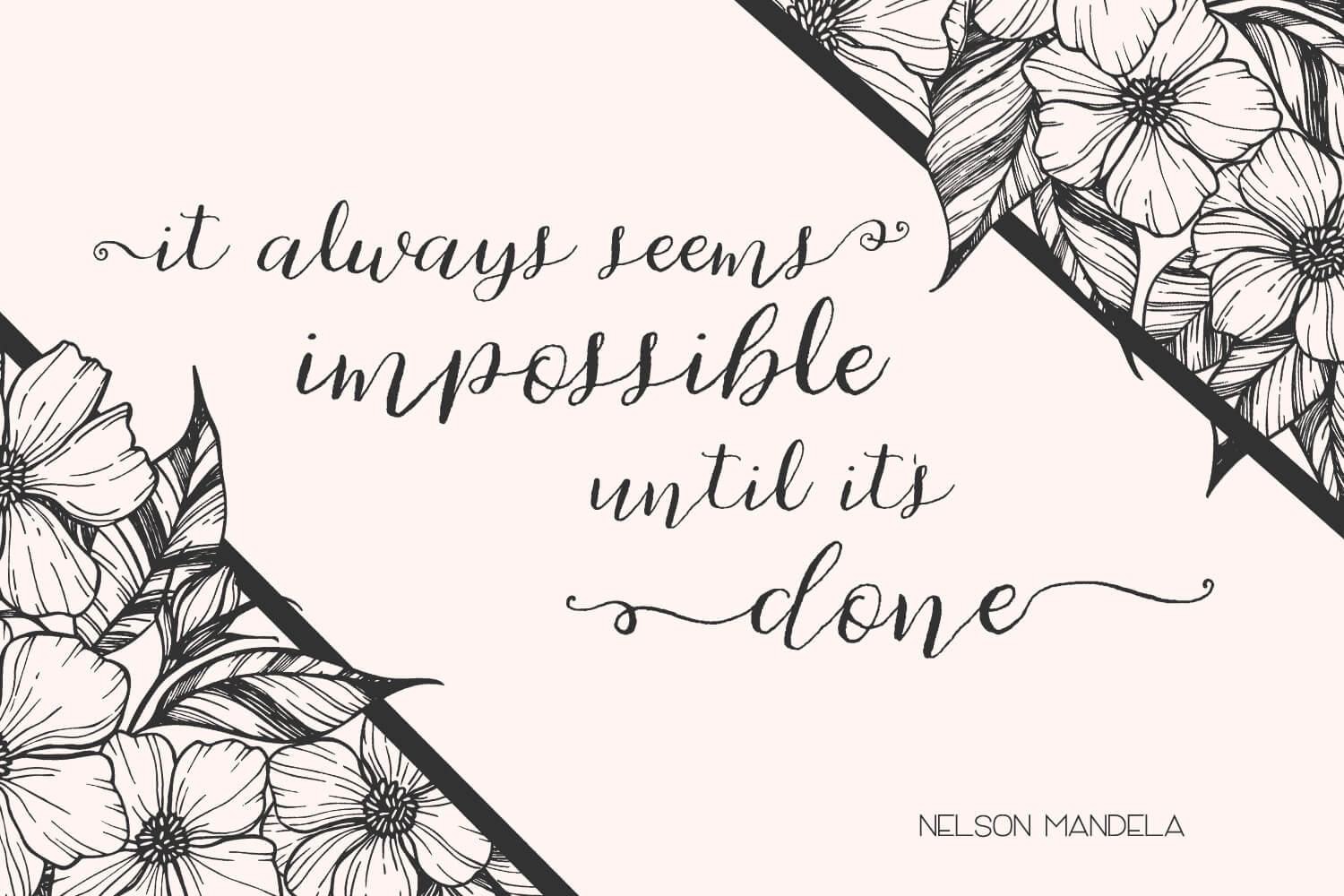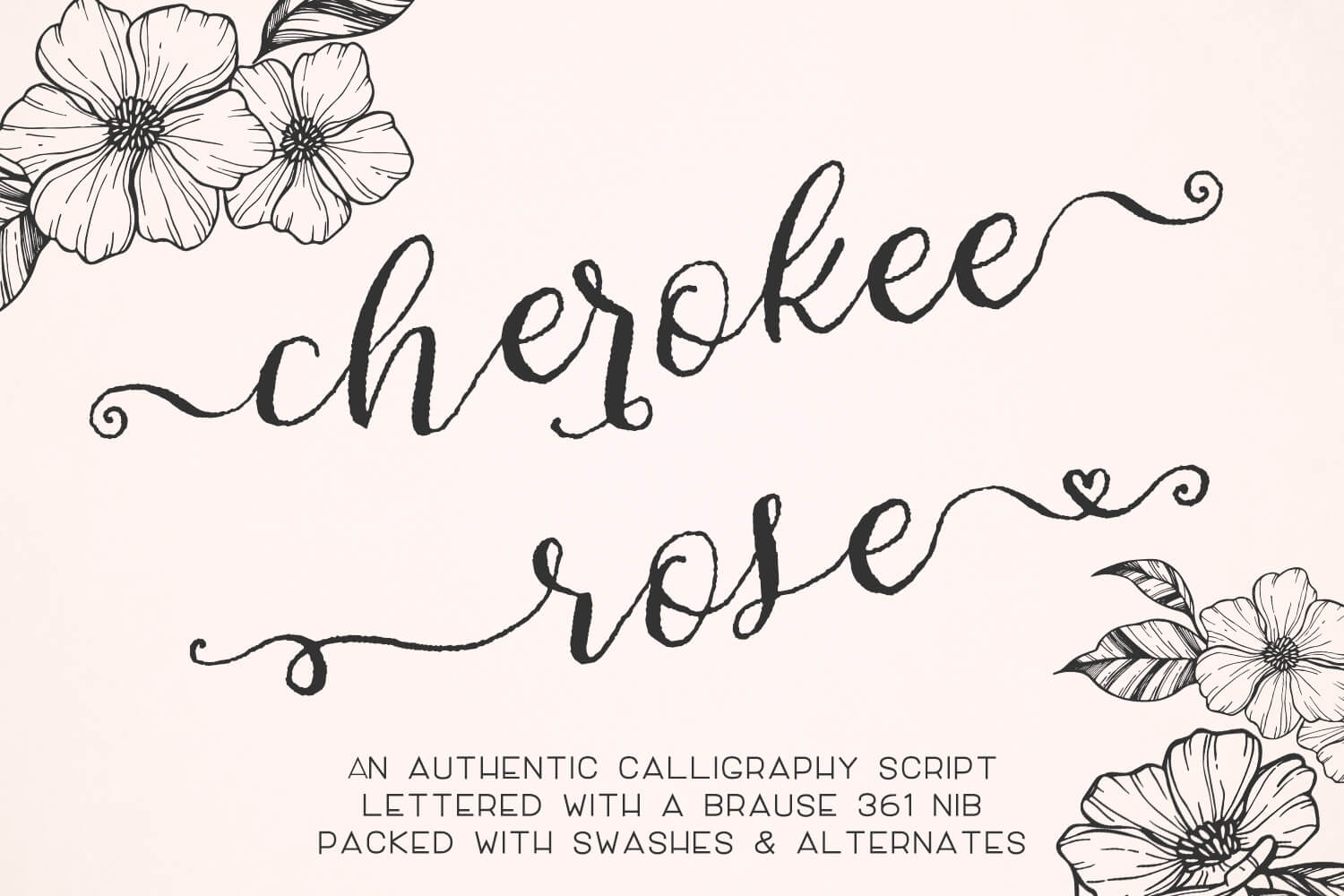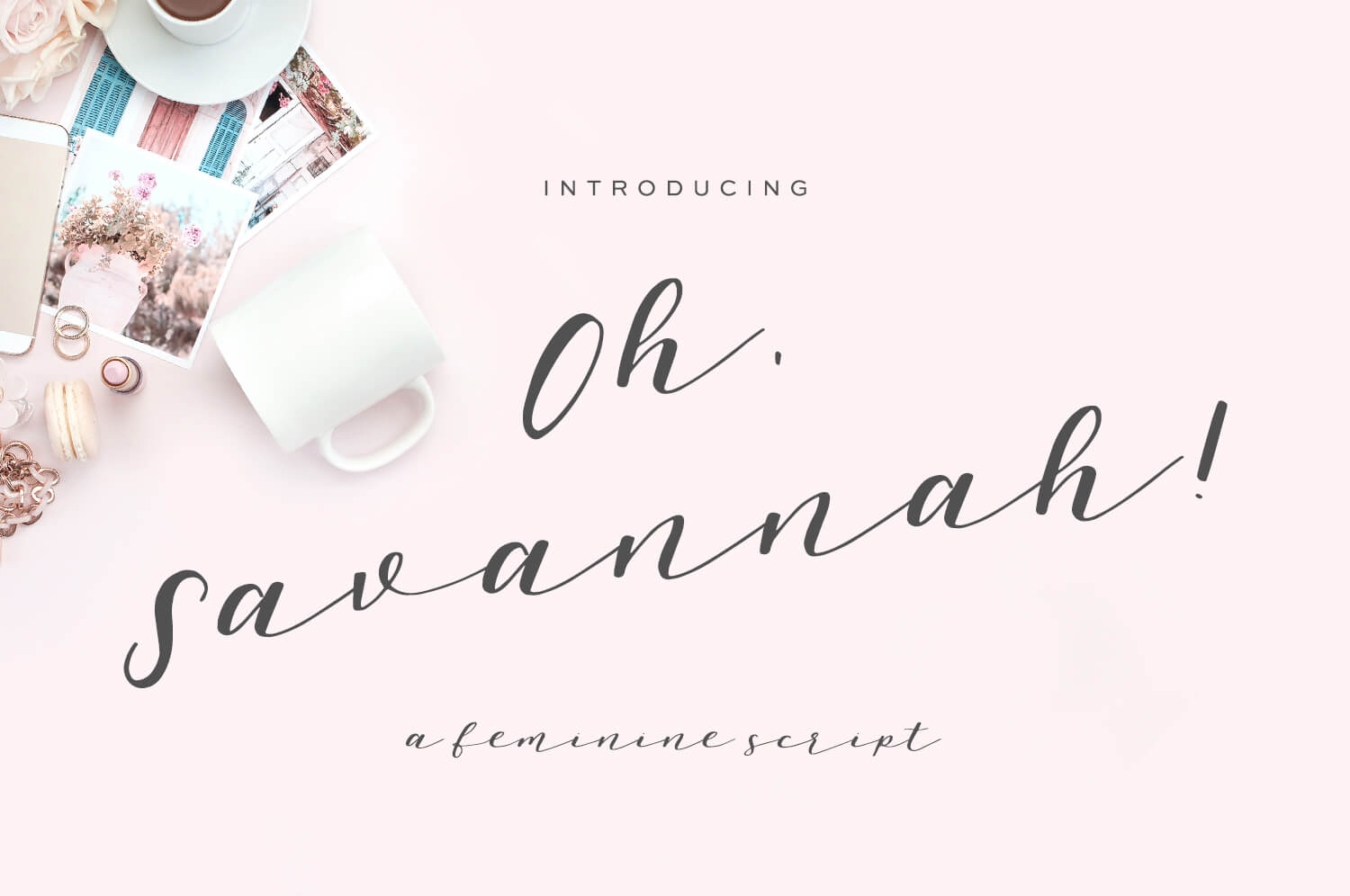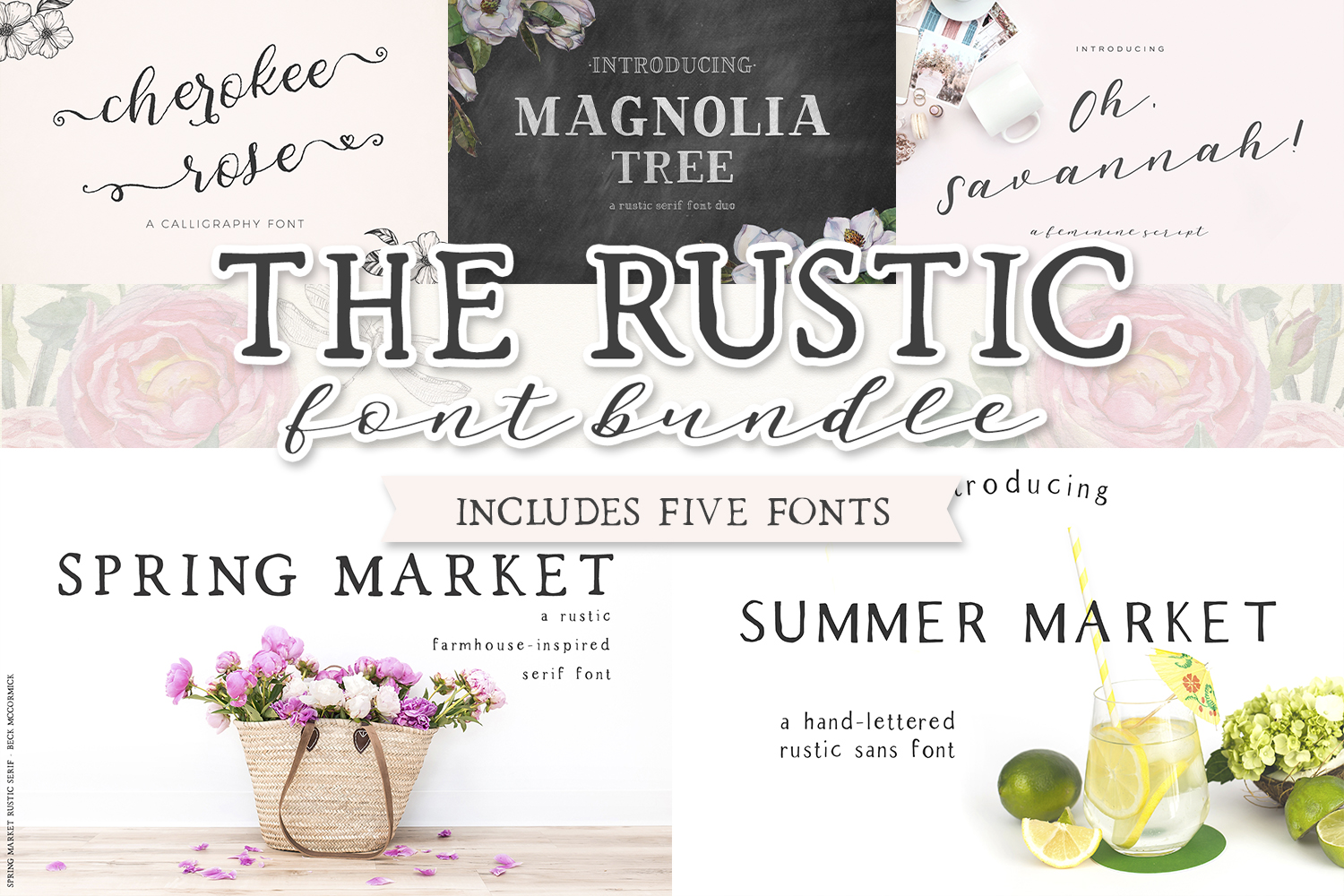
The Rustic Font Bundle includes some of the best farmhouse chic options for beautiful, shabby design projects. All fonts are hand lettered with care and precision. You’ll find that this mini-collection of shabby chic fonts is well suited for country cafes, chalkboard looks, or upscale consignment logos.
Some fonts include beautiful alternate characters & swashes, as well!
Cherokee Rose
Magnolia Tree Inline
Oh Savannah
Spring Market
Summer Market